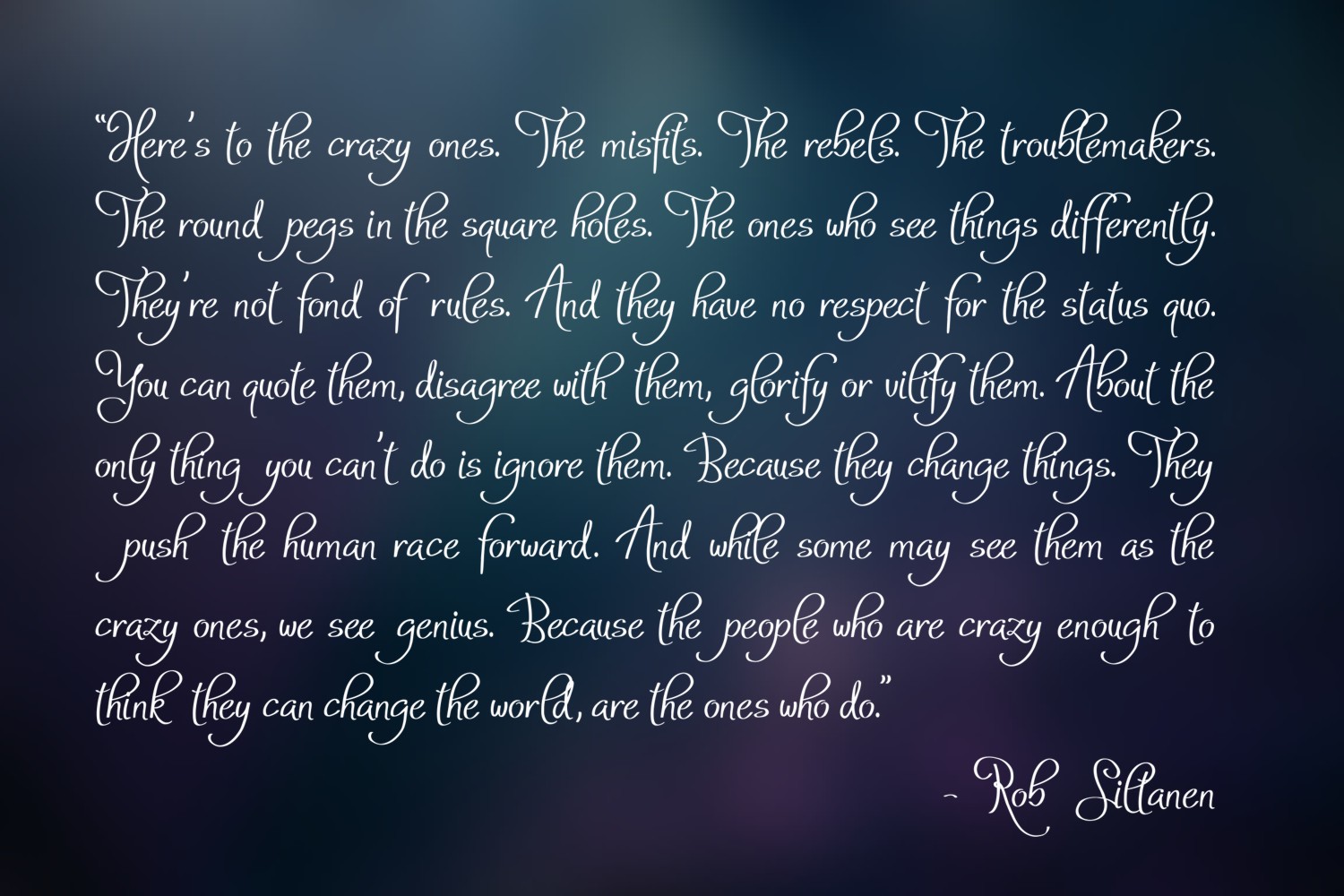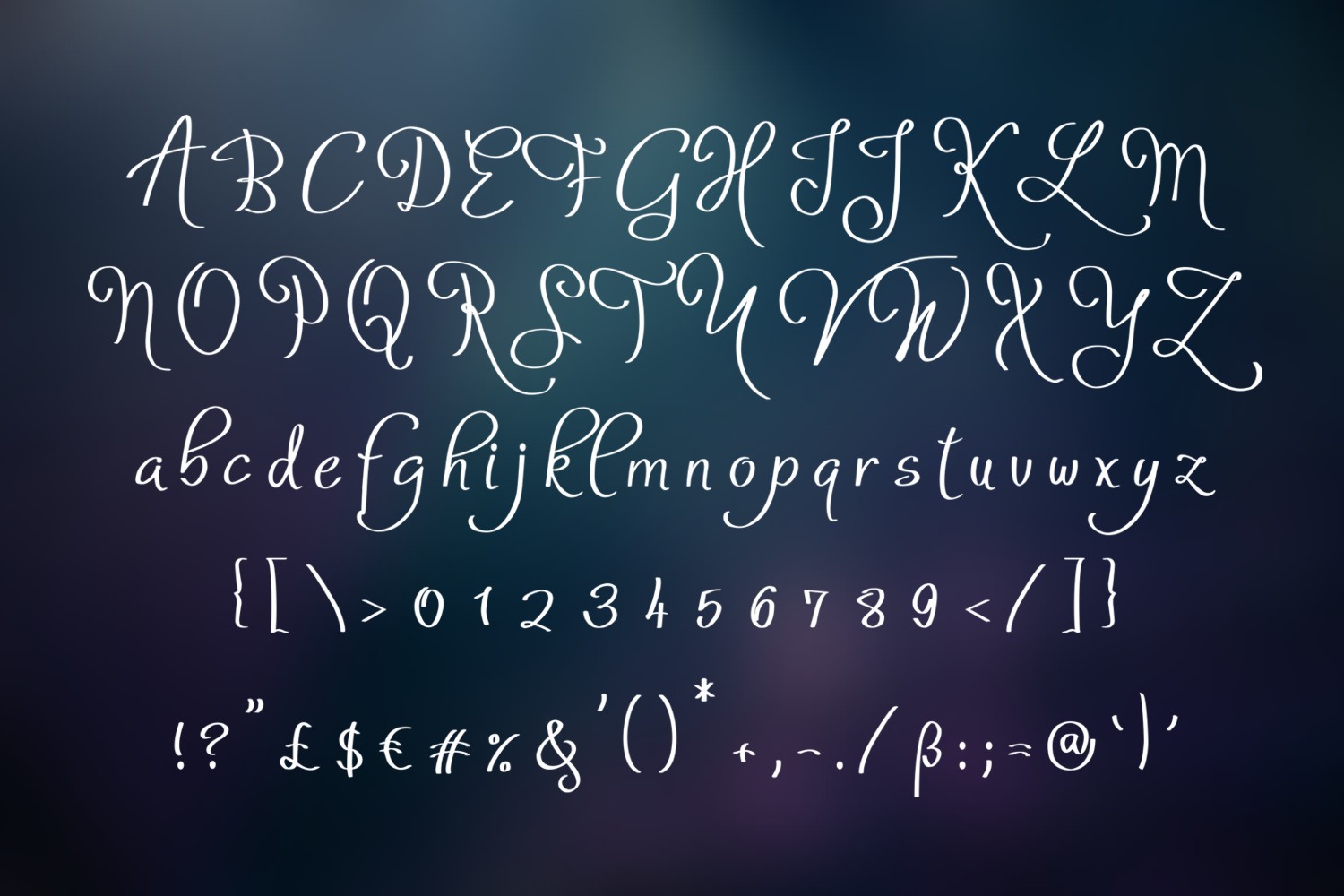
Have you ever sat down at your desk, staring at a blank page, waiting for inspiration to strike? The blank slate can be daunting, but what if I told you that the perfect font was just a click away? For designers, the right font can make all the difference in bringing a project to life. That’s why I’m excited to introduce you to Atyla Font, a fresh and modern script font that’s perfect for a wide range of design projects.
Atyla Font is a beautiful, handwritten script that adds a touch of personality to any design. With its casual vibe, it’s perfect for creating a sense of approachability and warmth in your projects. Whether you’re designing a logo, a website, or a social media campaign, Atyla Font is a valuable addition to your font collection.
- Unique Characteristics: Distinctive, elegant design with a mix of modern and classical elements; ideal for creative, editorial, and luxury branding
Atyla Font Review
Overall, I have mixed feelings about the Atyla Font. While it has some great qualities, it also has some limitations that may make it less desirable for certain design projects.
- ✨ Unique and distinctive style: Atyla Font has a distinctive and unique style that sets it apart from other fonts. It’s perfect for designers looking to add some visual interest to their projects.
- ✨ High-quality typography: The font is well-designed and has a high-quality feel to it. The letterforms are clean and well-proportioned, making it a great choice for body text.
- ⚠️ Limited font weights: Atyla Font only comes in a few font weights, which can limit its versatility. If you need a font with a wide range of weights, you may want to look elsewhere.
- ⚠️ Limited language support: The font may not support all languages, which can be a problem for designers working on projects with international audiences.
While Atyla Font has some great qualities, its limitations may make it less desirable for certain design projects. However, if you’re looking for a unique and distinctive font for a specific project, it may be worth considering. Just be sure to check the font weights and language support before committing to a purchase.
Tips for Getting the Most Out of Atyla Font
Here are some tips for getting the most out of Atyla Font:
- Use Atyla Font for headings and titles to add a touch of elegance and sophistication.
- Combine Atyla Font with other fonts to create a unique and interesting typography.
Atyla Font is suitable for a wide range of use cases, including:
- Branding and
Alternatives to Atyla Font for Designers
Ostrich Sans is a modern sans-serif font that is highly legible and versatile. It’s perfect for digital design projects, such as website headers, titles, and body text. Ostrich Sans is a great alternative to Atyla Font as it offers a similar clean and minimalist aesthetic, but with a more contemporary feel.
Akkurat
Akkurat is a sans-serif font with a unique blend of modern and classic elements. It’s suitable for print and digital designs where a sophisticated and elegant look is desired. Compared to Atyla Font, Akkurat has a more refined and polished feel, making it ideal for high-end branding and editorial projects.
Montserrat is a geometric sans-serif font that is highly versatile and suitable for a wide range of design projects. It’s perfect for titles, headings, and body text in digital designs, as well as print materials such as brochures and business cards. Montserrat is a great alternative to Atyla Font as it offers a similar modern and sleek aesthetic, but with a more geometric feel.
Q: Is Atyla Font optimized for digital use?
Yes, Atyla Font is optimized for digital use. It features advanced hinting and kerning to ensure clear and legible text at various screen resolutions and font sizes.